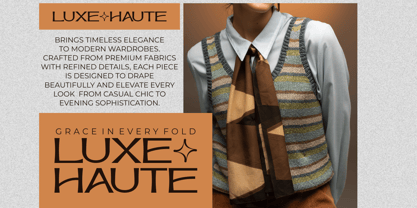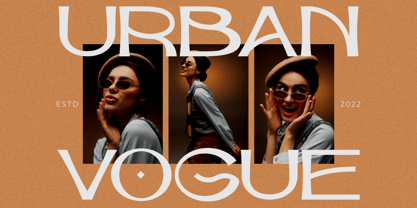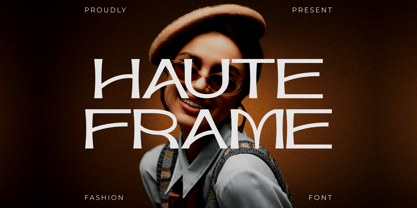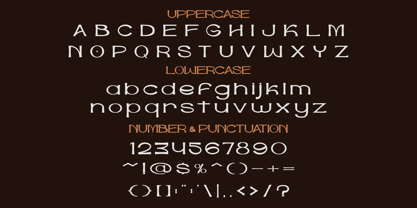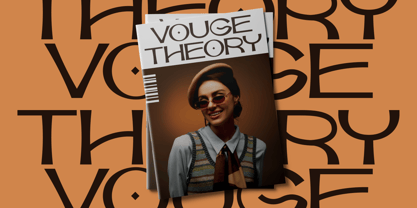
Haute Frame
by Shanaf
The Haute Frame Font Family was designed by Yesie Erma Yunita and published by Shanaf. Haute Frame contains 1 styles. More about this family
Haute Frame Fashion Font blends refined modern styling with elegant geometric construction. The letters feature tall proportions, thin-to-medium strokes, soft curves, and spacious forms that create a graceful visual rhythm. Several characters use elongated terminals and artistic line transitions that add a fashionable personality without reducing readability. The typography feels clean, stylish, contemporary, and slightly editorial. Its balanced spacing helps headlines appear polished and sophisticated in both large and compact layouts. Haute Frame Fashion Font fits fashion branding, luxury cosmetics, jewelry packaging, beauty studios, lifestyle products, boutique businesses, and modern creative agencies. The style combines modern fashion aesthetics, minimalist elegance, art deco influence, and editorial typography. This font works strongly for logos, branding systems, posters, packaging, social media promotions, magazine titles, invitation cards, book covers, product labels, and elegant advertising concepts.
This typeface creates a refined atmosphere for branding projects that require stylish presentation and artistic character. The uppercase set delivers dramatic visual impact, while the lowercase letters maintain a soft and graceful flow. Circular details and decorative curves give the font a fashionable identity that stands out in editorial compositions. Numeric characters and punctuation preserve the same sleek appearance for professional layouts and modern branding materials. The font suits themes related to luxury lifestyle, beauty campaigns, fashion editorials, interior branding, skincare products, creative portfolios, and cinematic titles. It also works for café branding, perfume packaging, wedding stationery, photography studios, and modern magazine design. The overall style feels elegant, minimal, artistic, and timeless while maintaining a fresh contemporary direction.